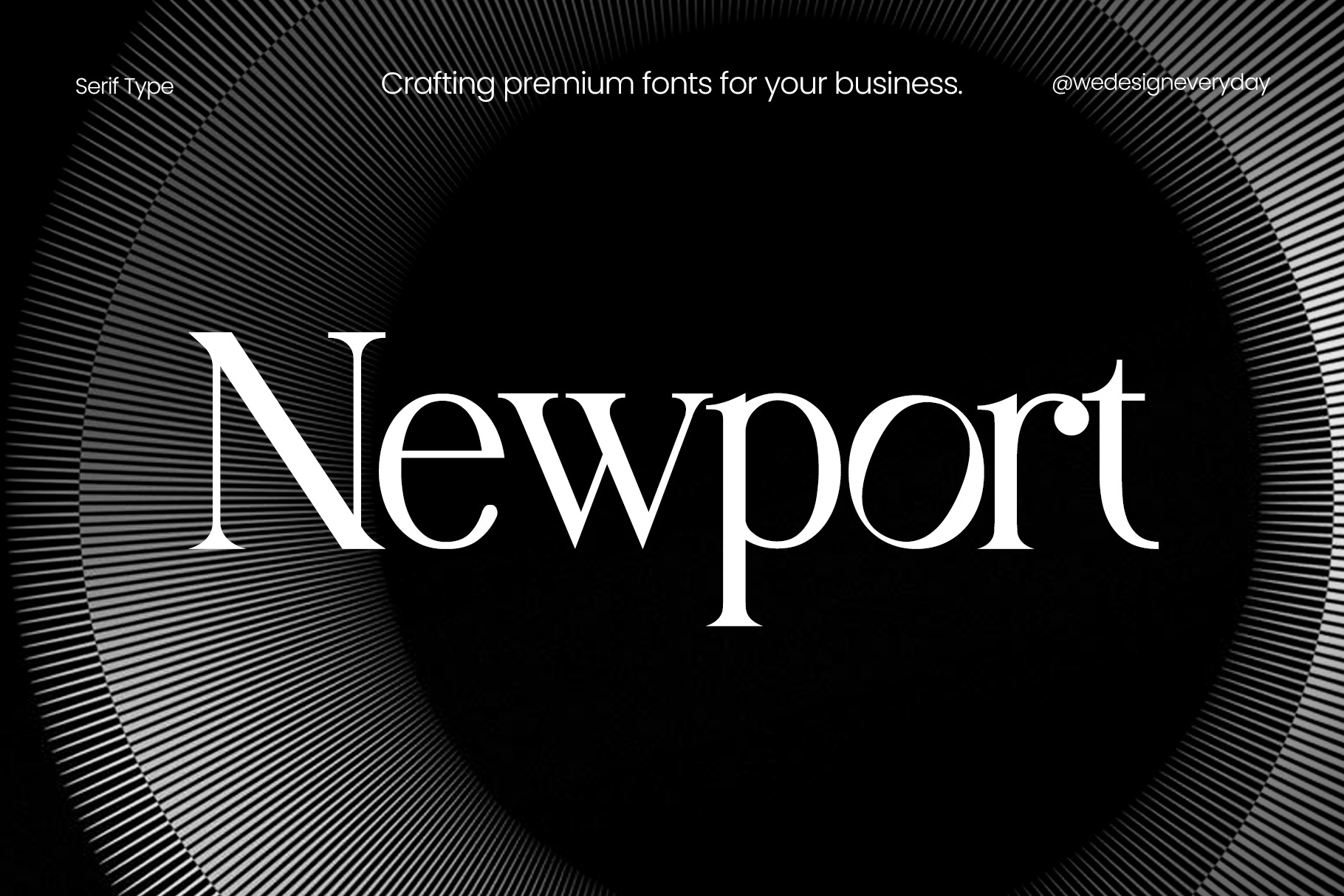
Newport Serif Font
Newport serif typeface is a modern serif typeface with unique curves and look. Newport font is available with all set of capital and lowercase letters, as well as numerals, punctuation. Perfect for branding, layouts, magazine spreads and invitations,